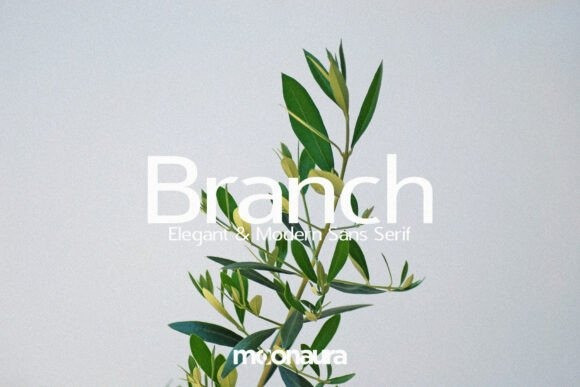
Branch Sans Font
Branch Sans Font is an elegant, modern sans-serif typeface featuring clean lines and balanced proportions. Its refined design makes it perfect for sophisticated branding, editorial design, and upscale digital projects. Archive includes .otf & .ttf files.